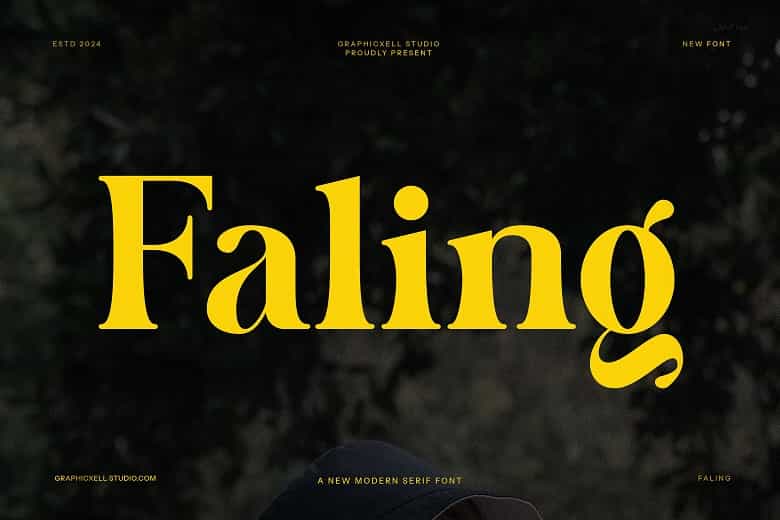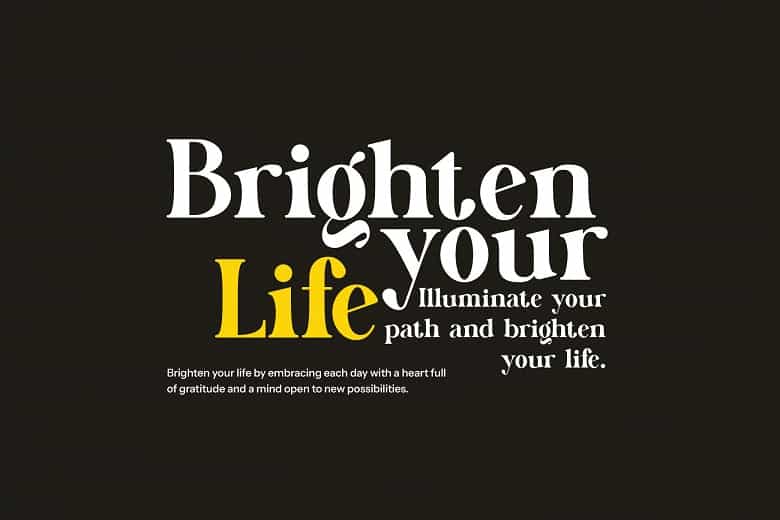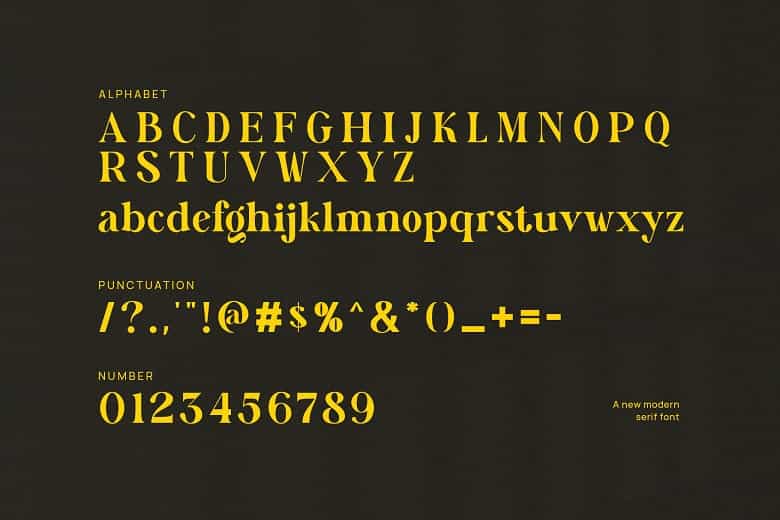
Faling is a new modern serif font. This font has been crafted precisely in order to achieve high quality and give a luxurious impression. The ligatures give this typeface a distinct look and feel compared to a standard serif font.